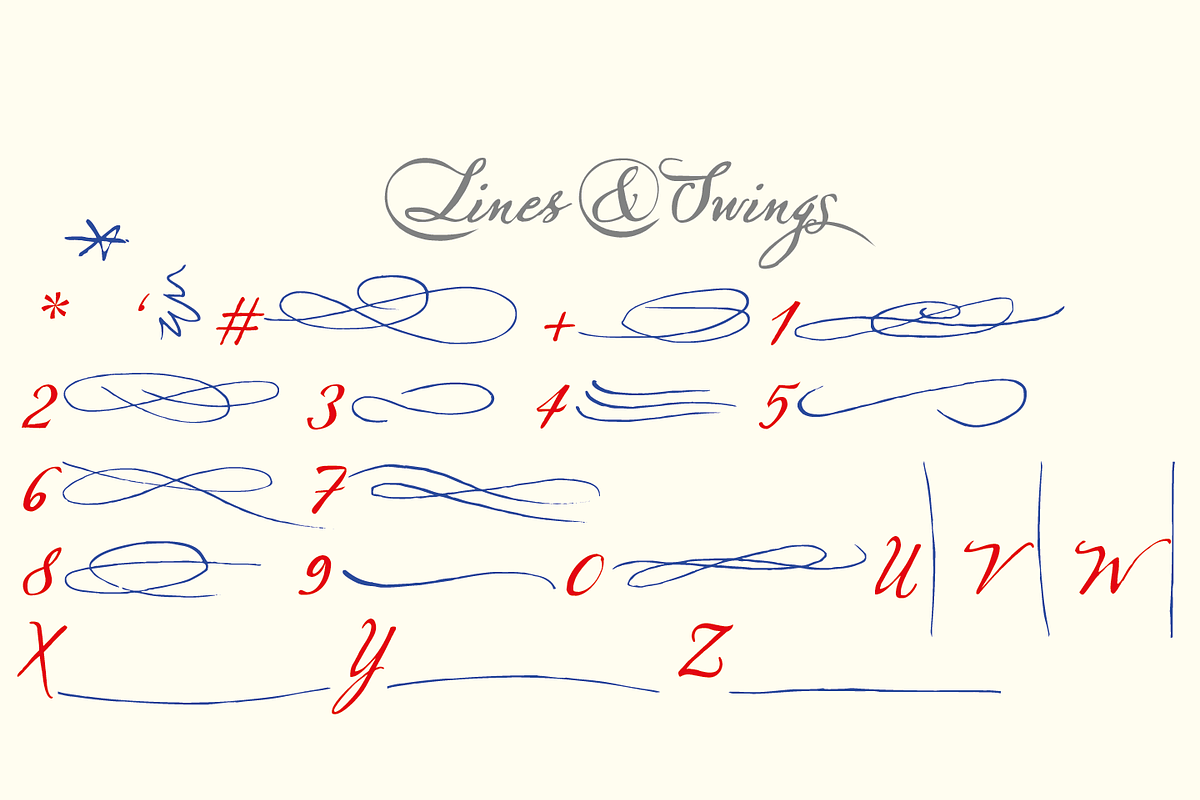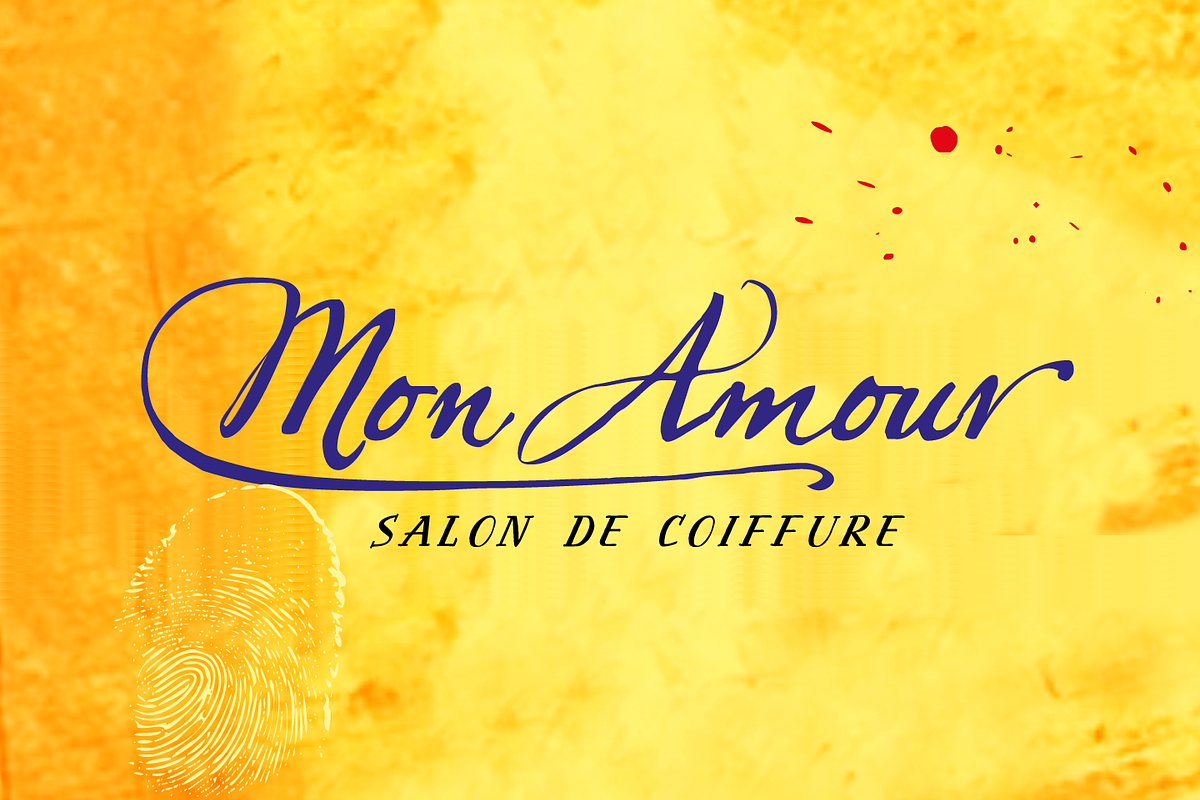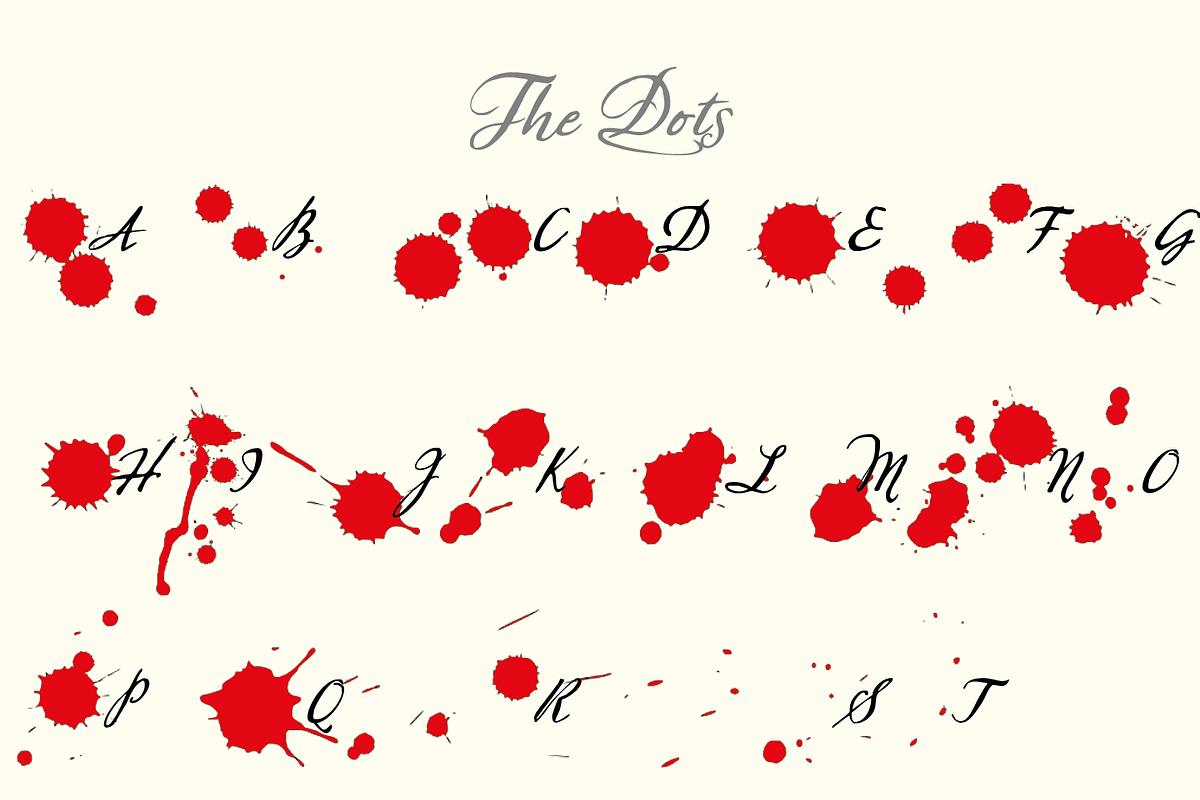
Sherlock Script
Sherlock is a very mysterious script, always on the lookout for the killer-design-project. It is a joining- or not-joining-script, whatever you want it to be. There are 7 different capital letters, some with different forms, some with swashes or underlining swings. And there are many alternate lowercase letters and ligatures as well as a set of old-style-numbers. Sherlock comes in 10 single files so that everyone can use the many variations. Sherlock-Script 1-7 are the different variations of the script packed in single fonts. 1 is the normal version, 2 is the alternate capitals combined with small-caps and old-style cyphers. 3 through 7 are different versions of capitals with under-strokes and different kind of some lowercase letters with different swings. Sherlock-Stuff 1-3 are the three different embellishments, 1=Dots, 2=Lines and 3=Fingerprints. Please look at the brochure that explains and shows all the details. Enjoy the huge variety!